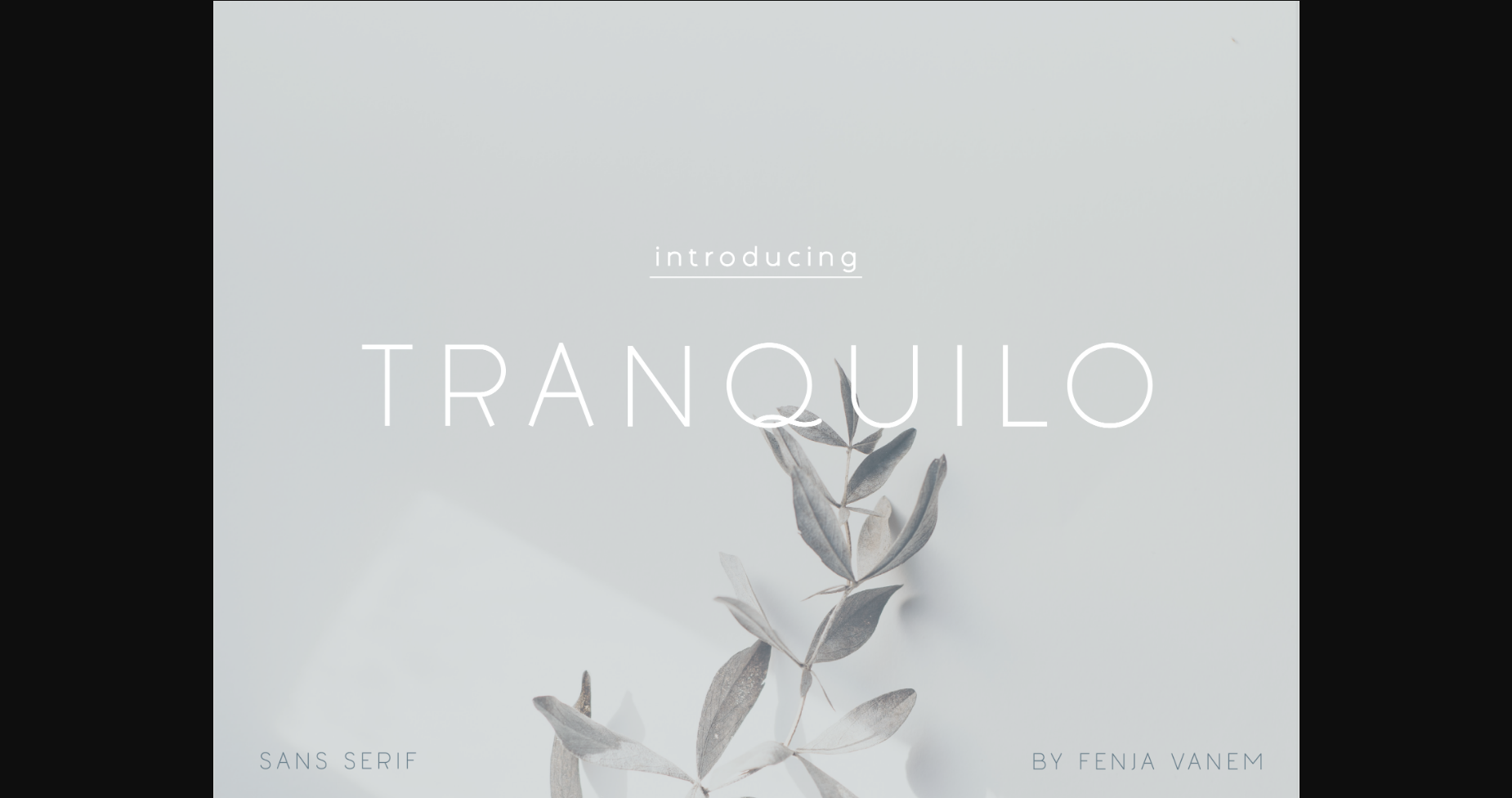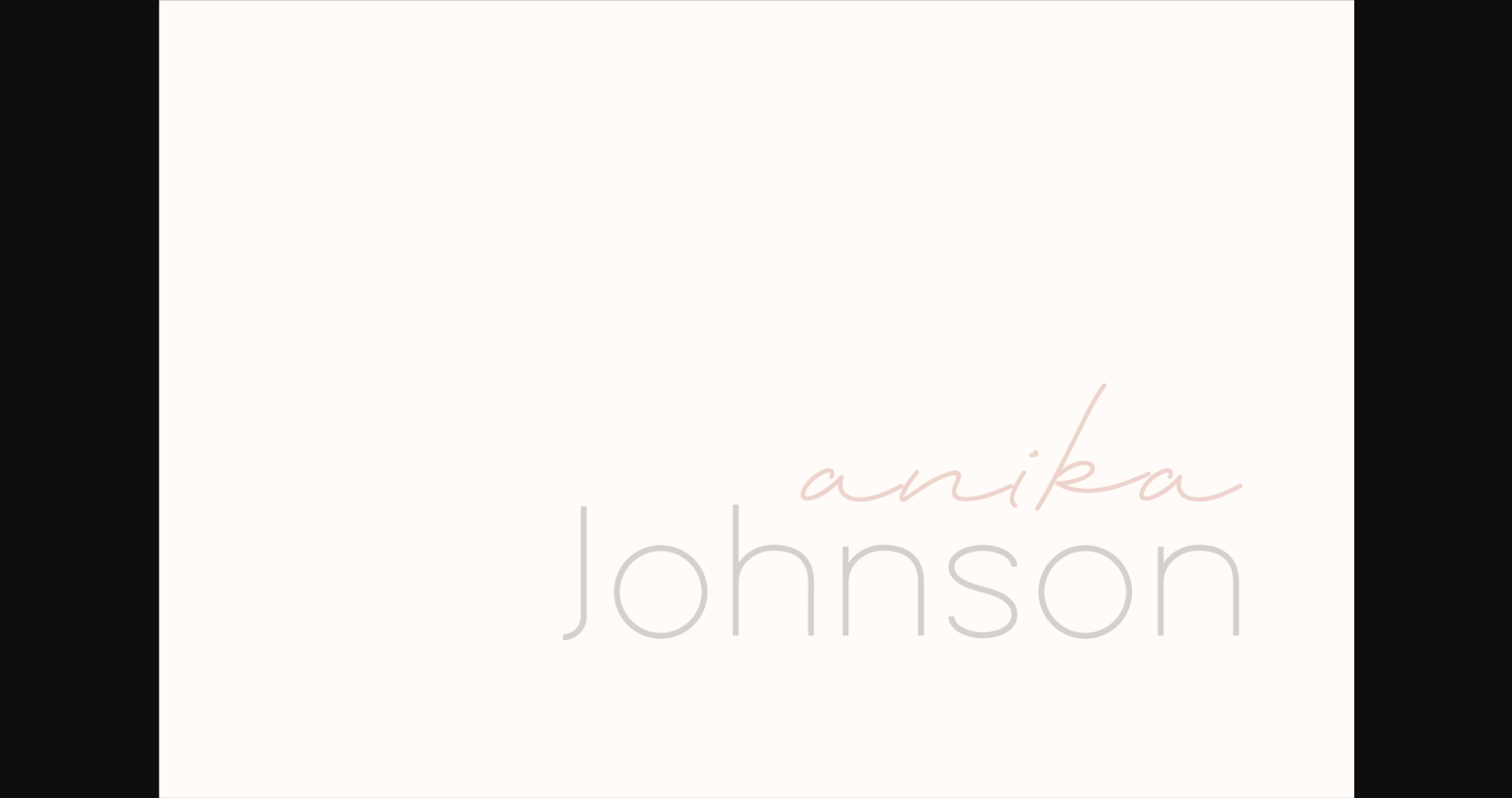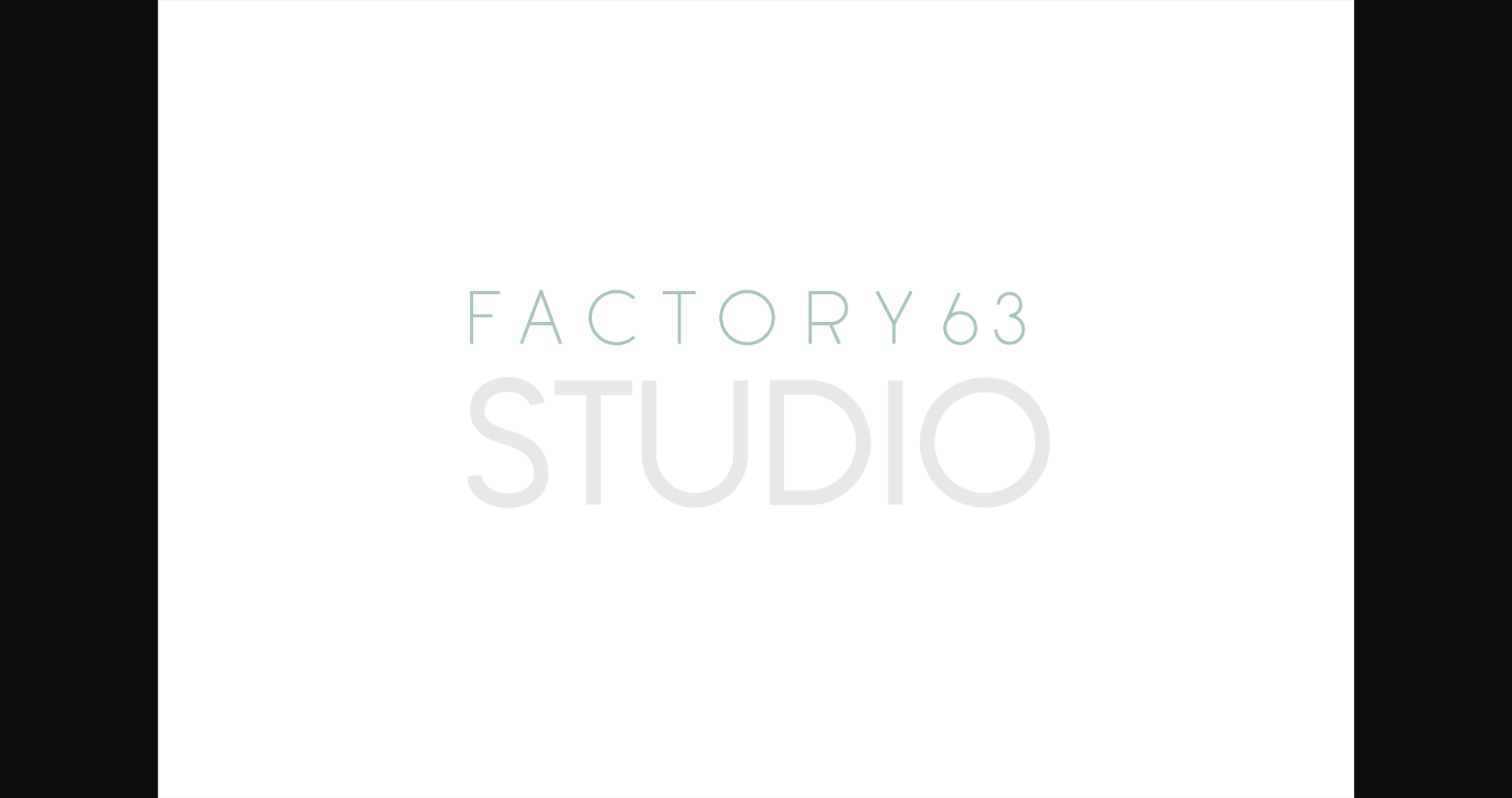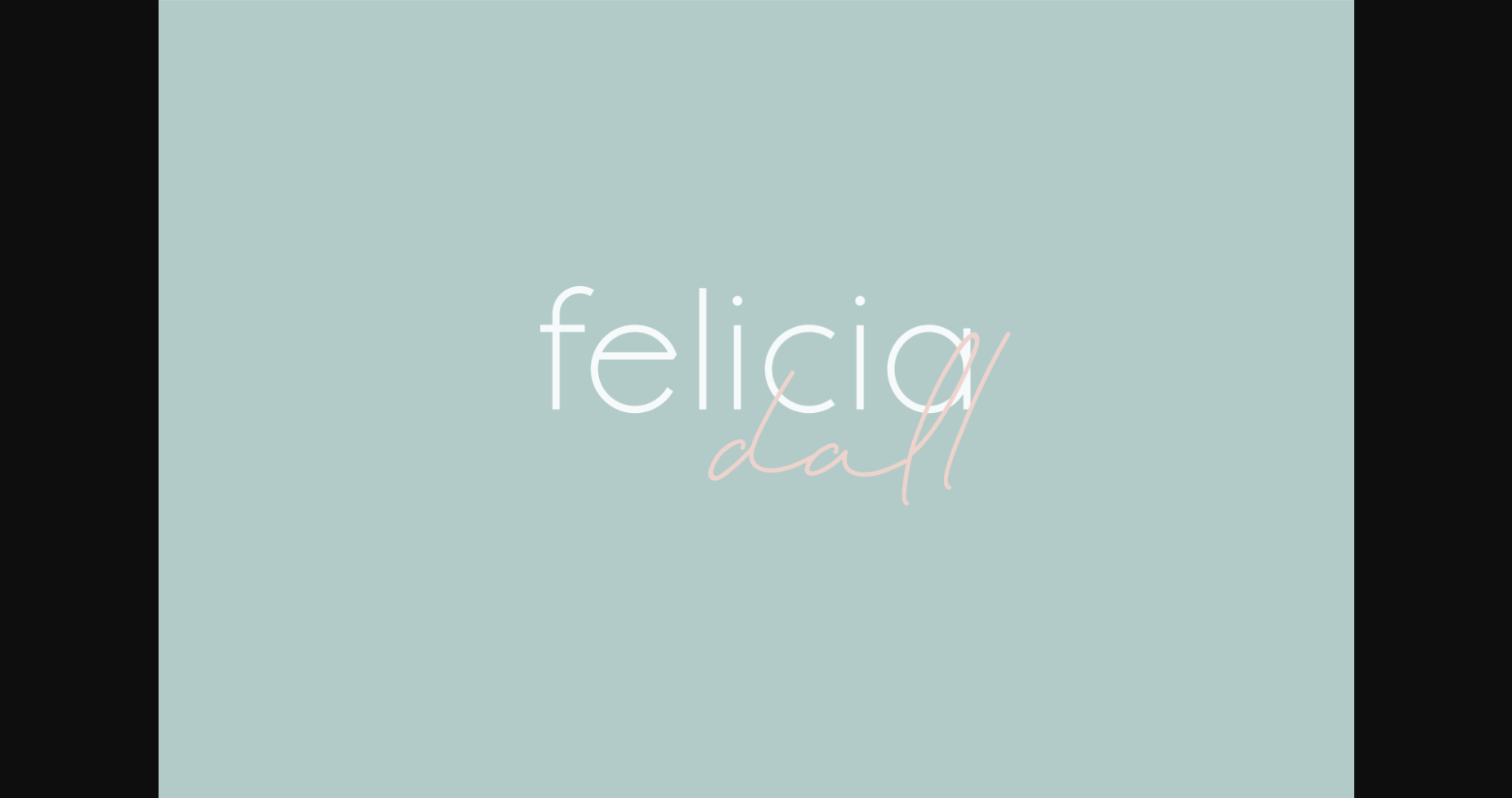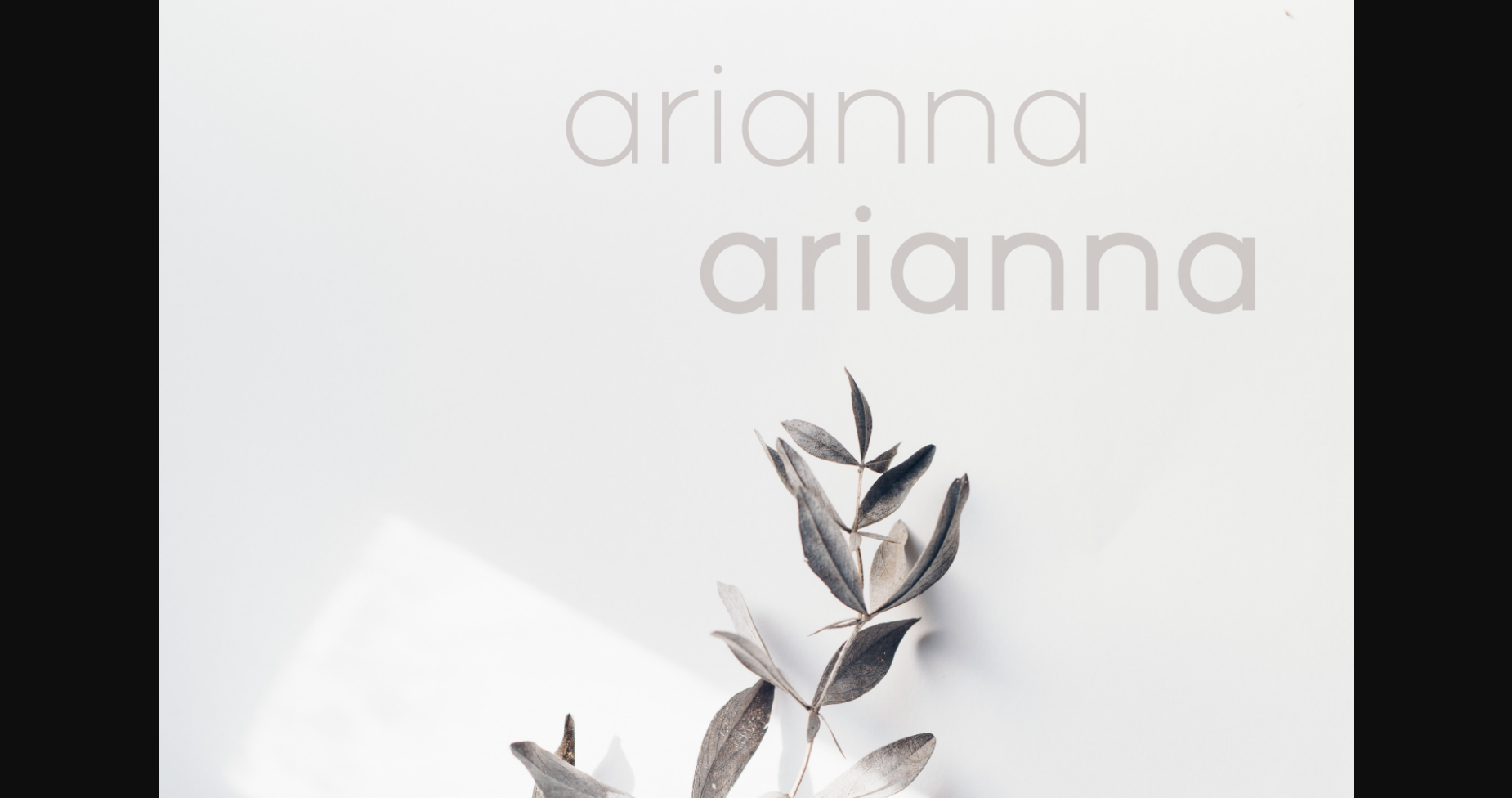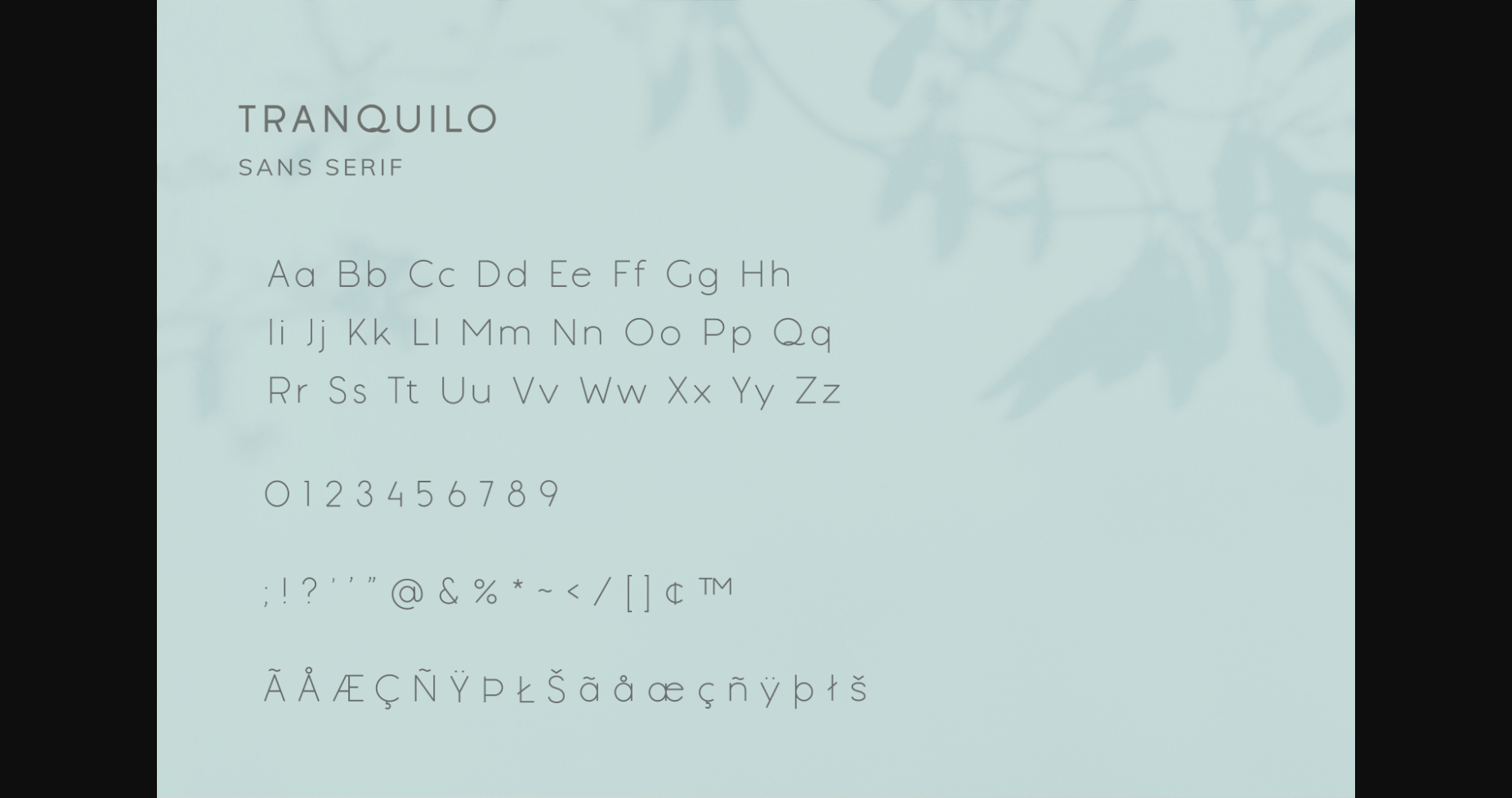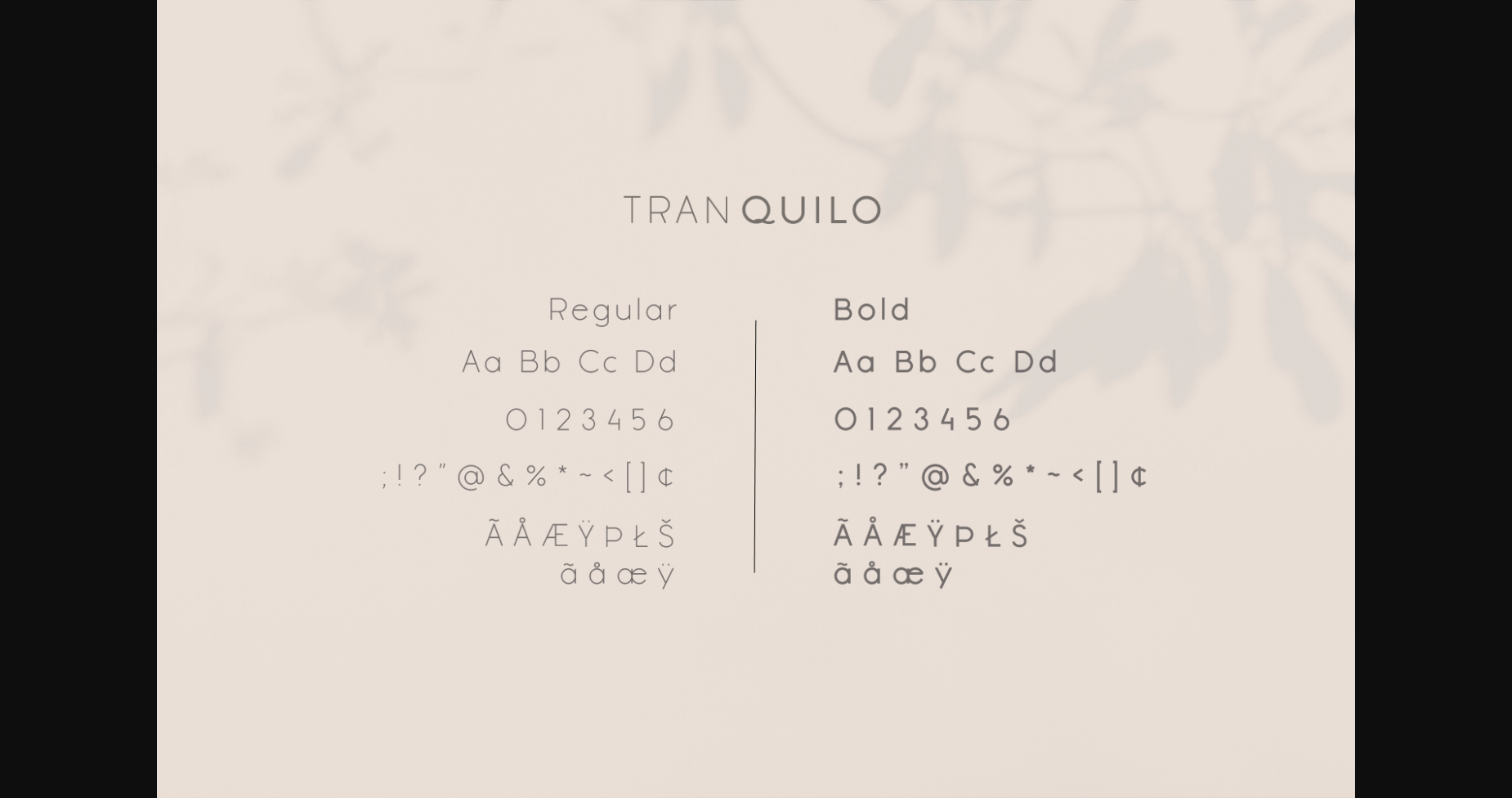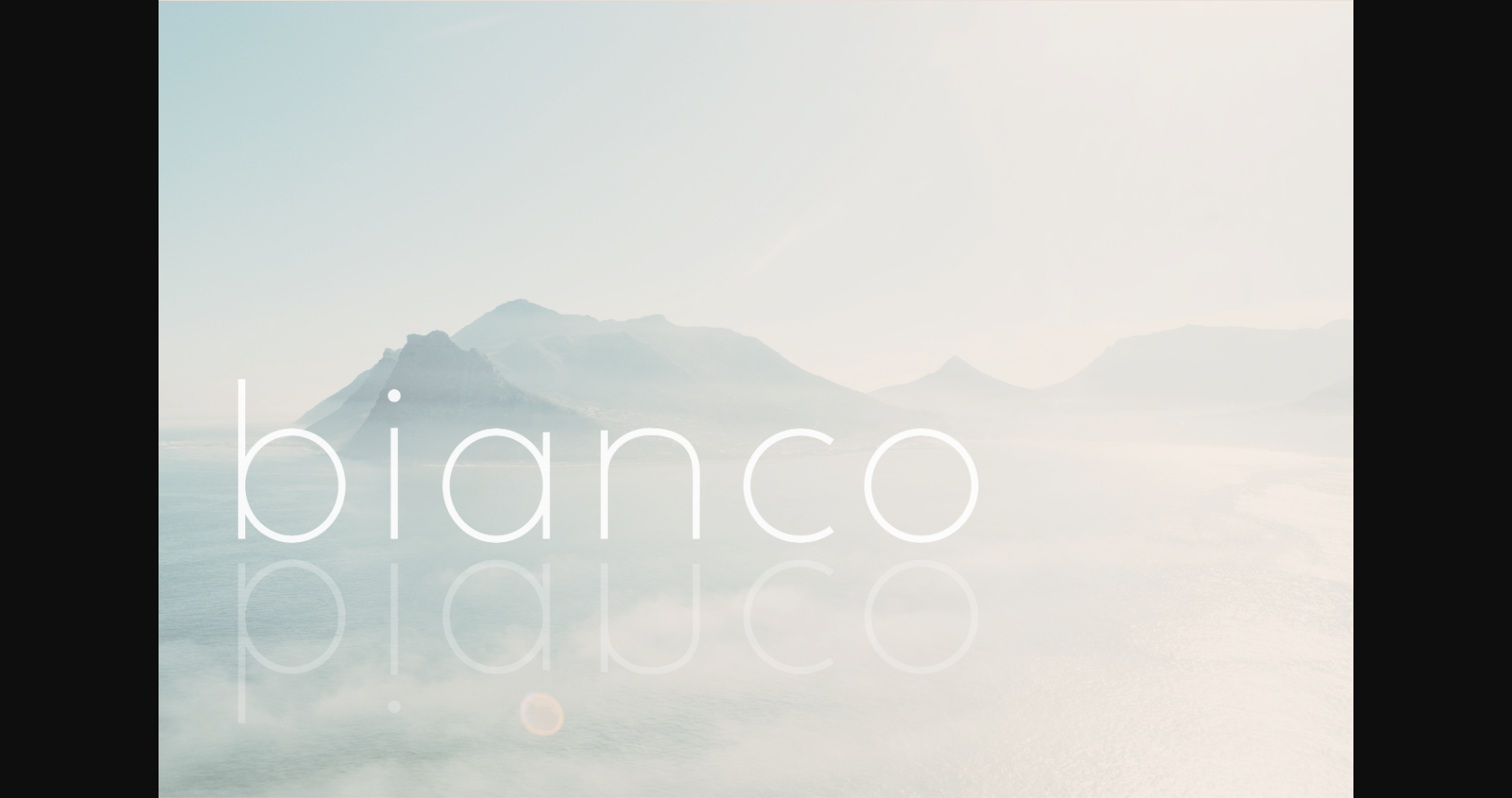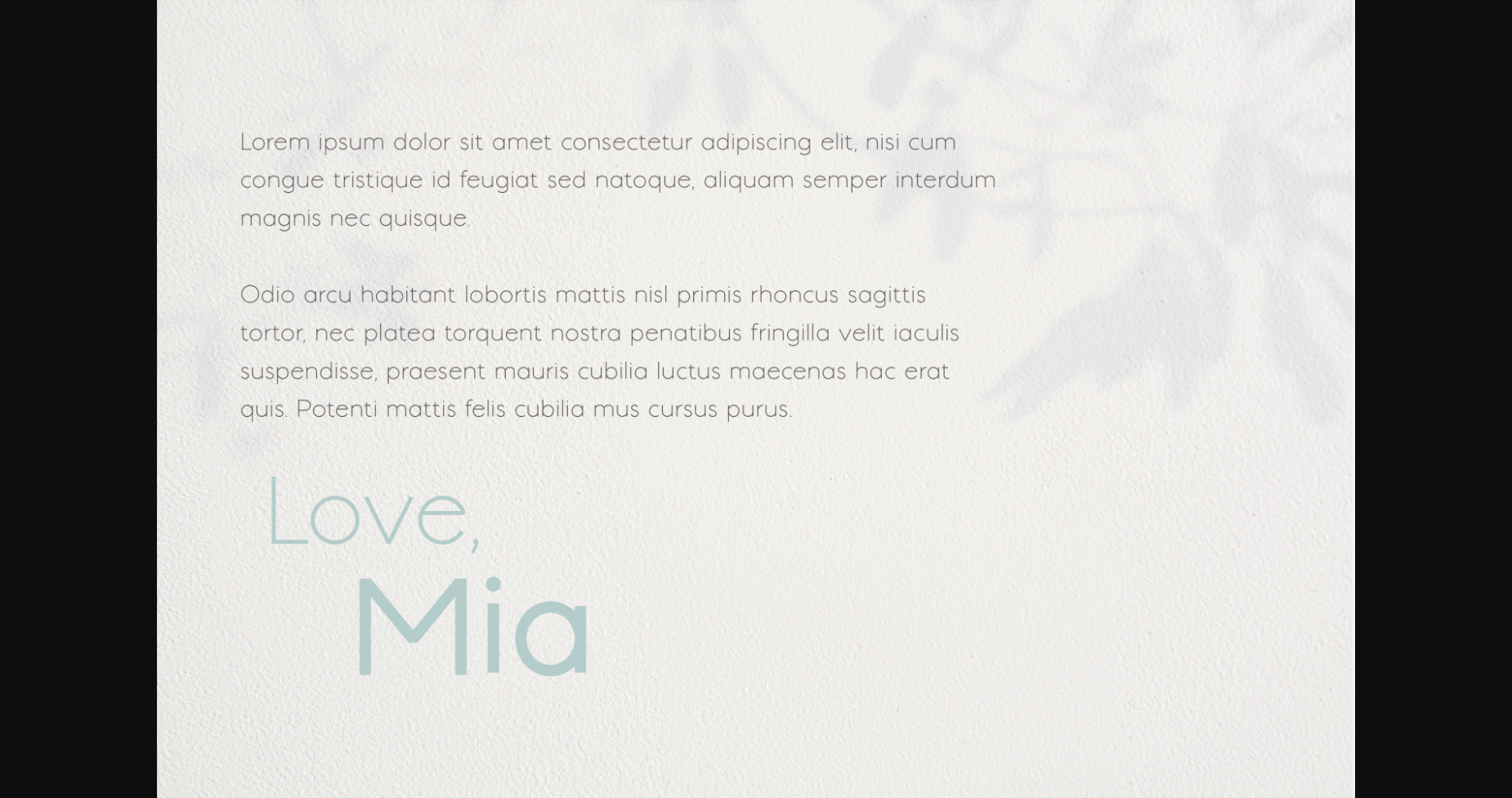
Tranquilo Font
About Tranquilo Font
Tranquilo is a minimalistic and thin sans-serif font that exudes modernity and simplicity. With its sleek and slender letterforms, this font is perfect for design projects that require a clean and minimalist look. Ideal for branding, advertising, and editorial design, this font will add a touch of elegance and sophistication to any project.